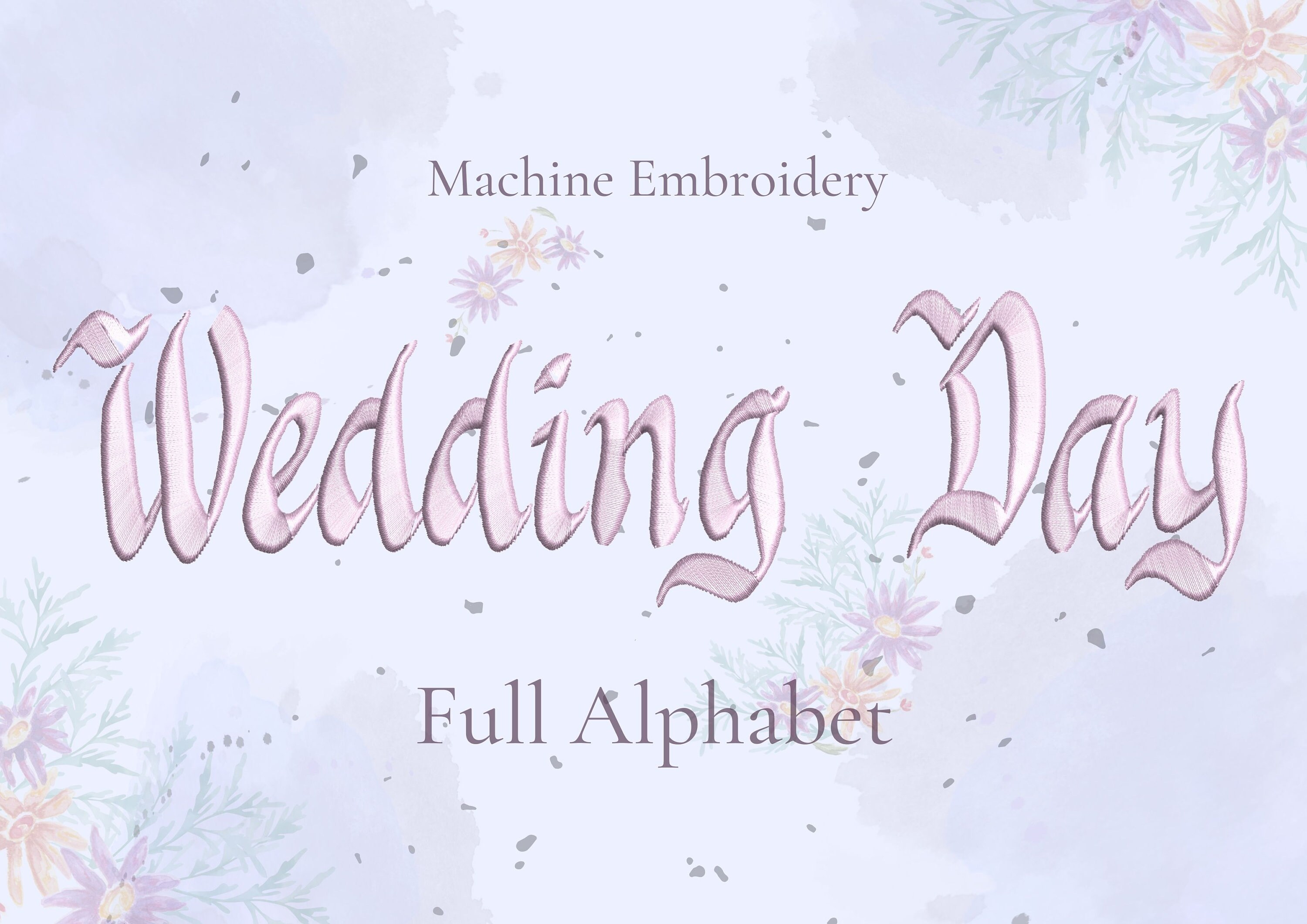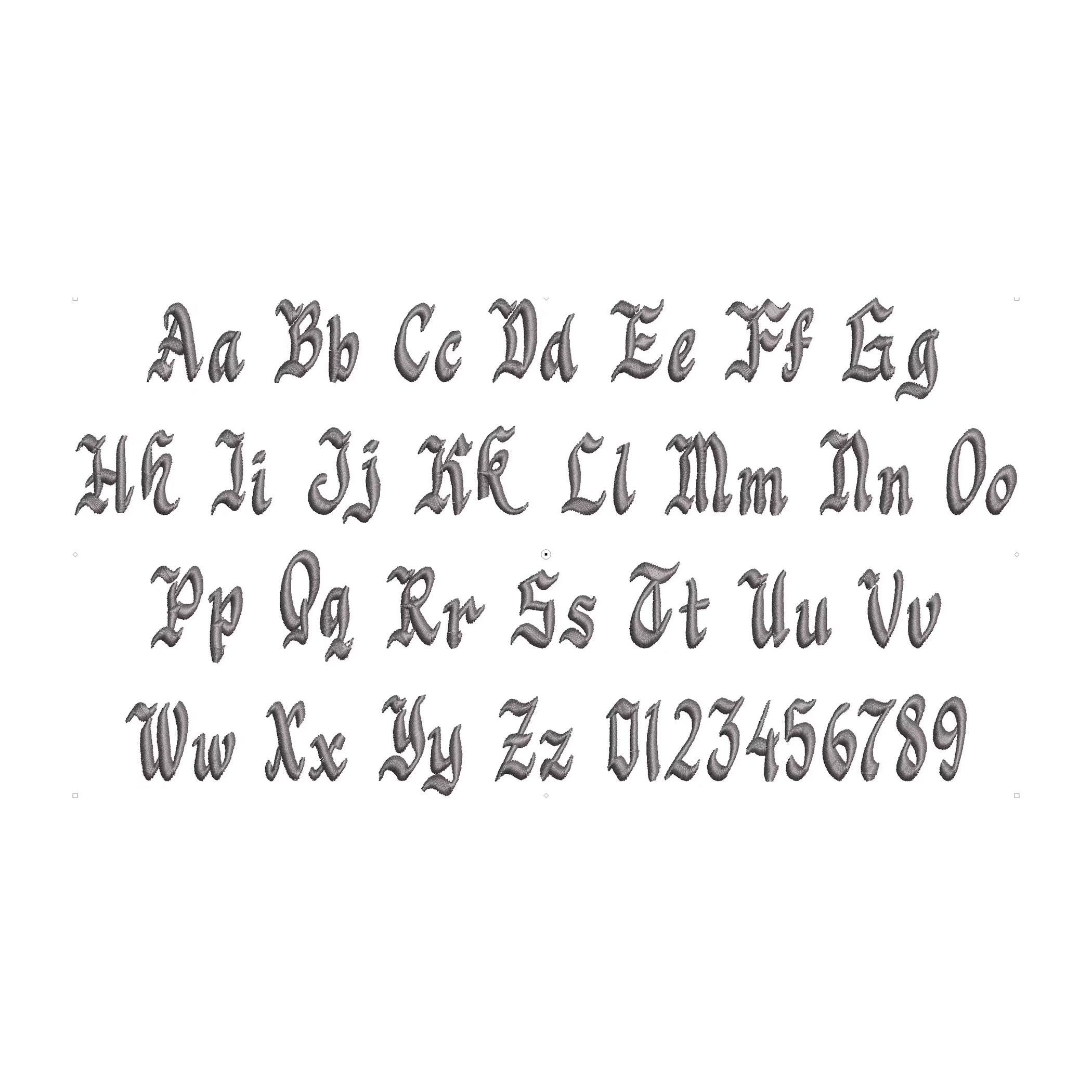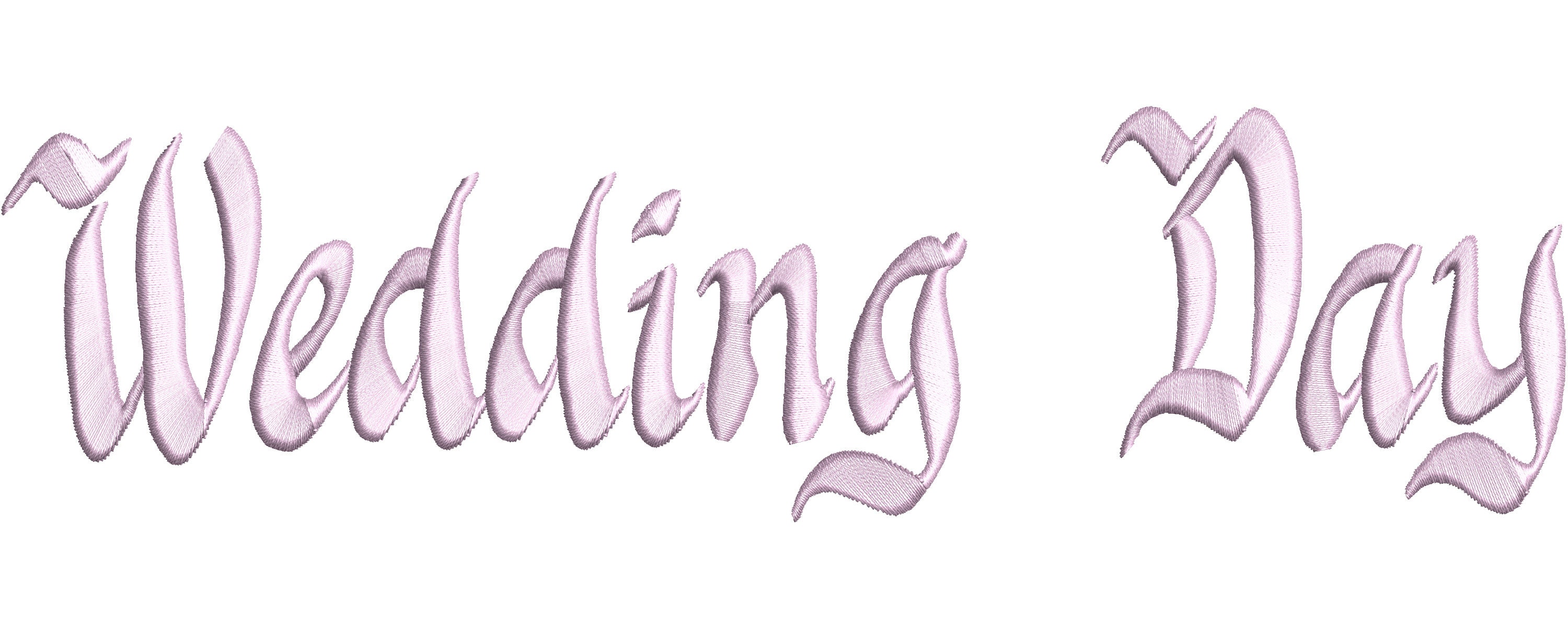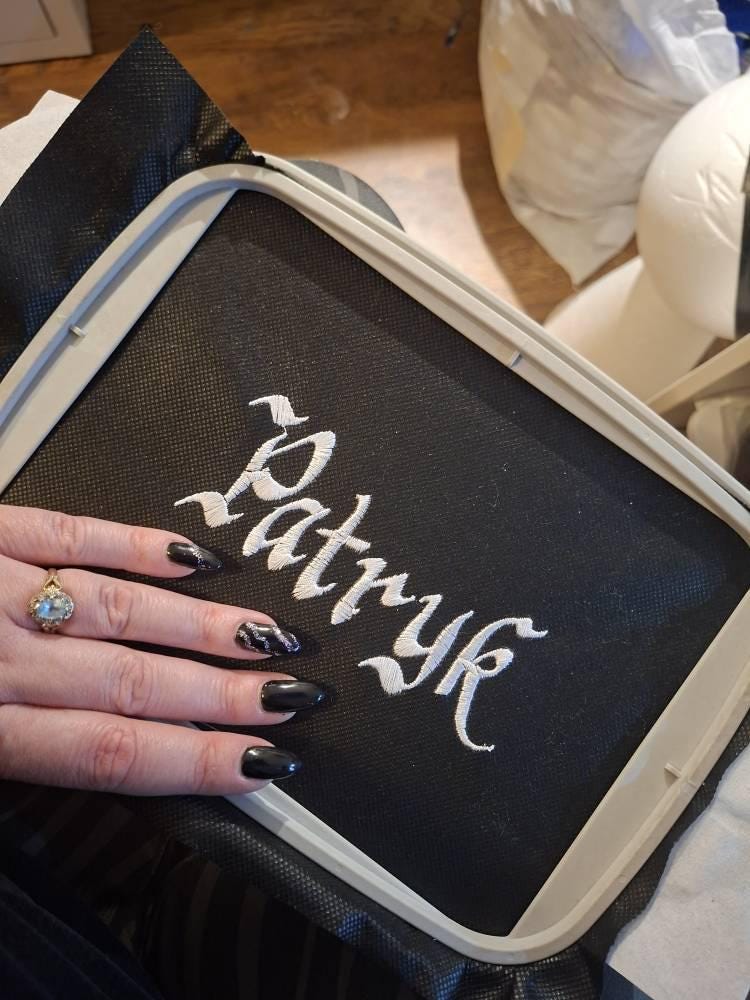
Old fashioned old book tattoo rocker Font machine embroidery designs gothic medieval alphabet letters once upon a time monogram, BX included
Uppercase and lowercase letters, and numbers.